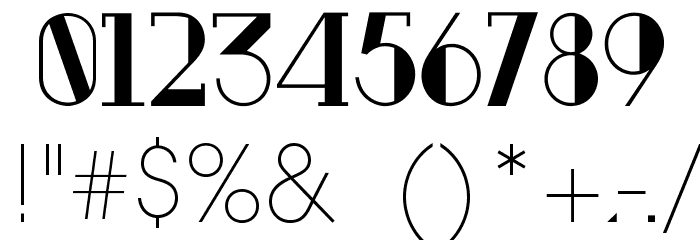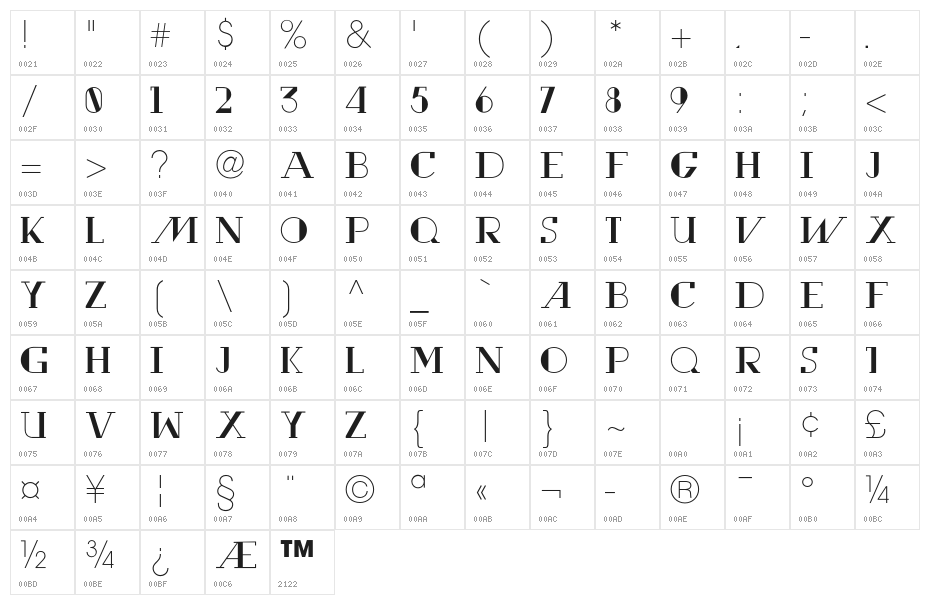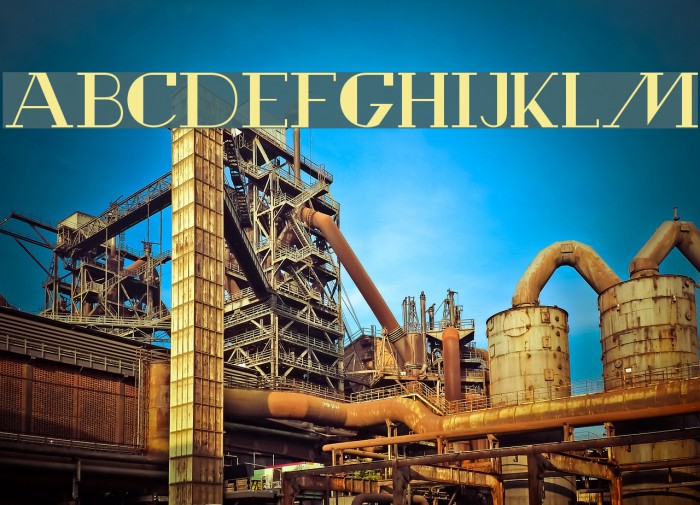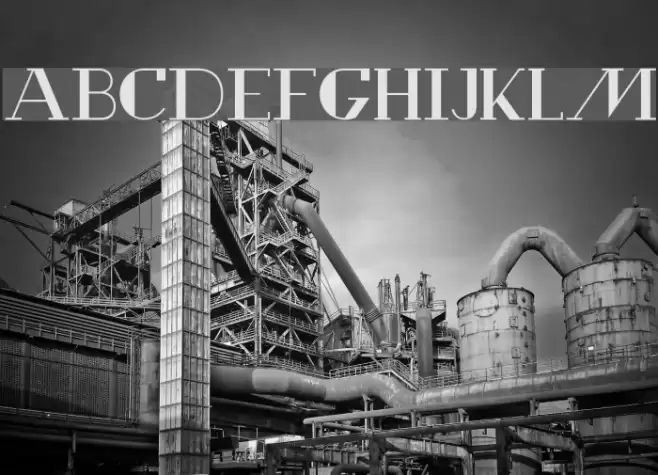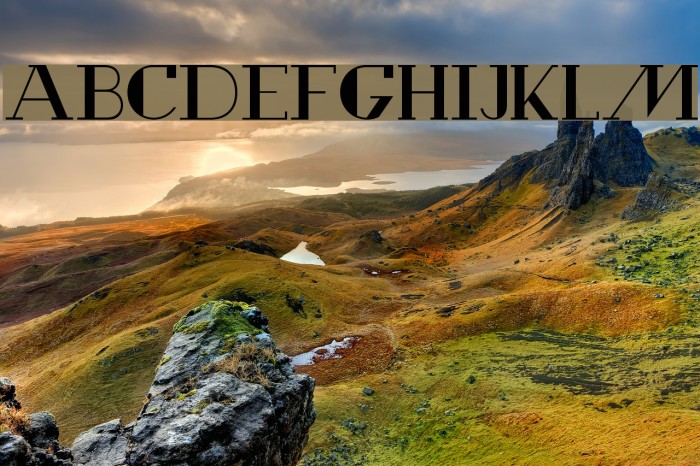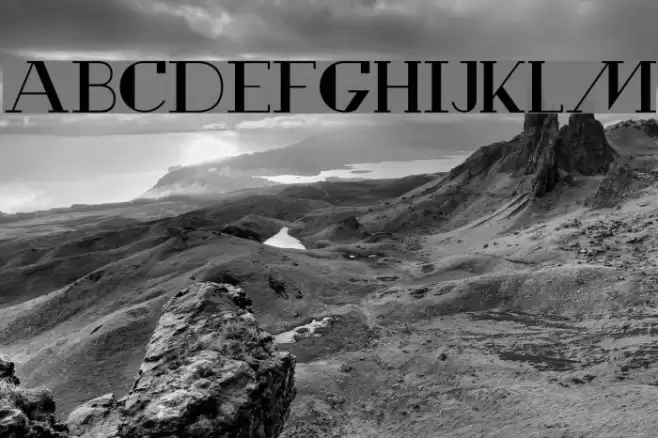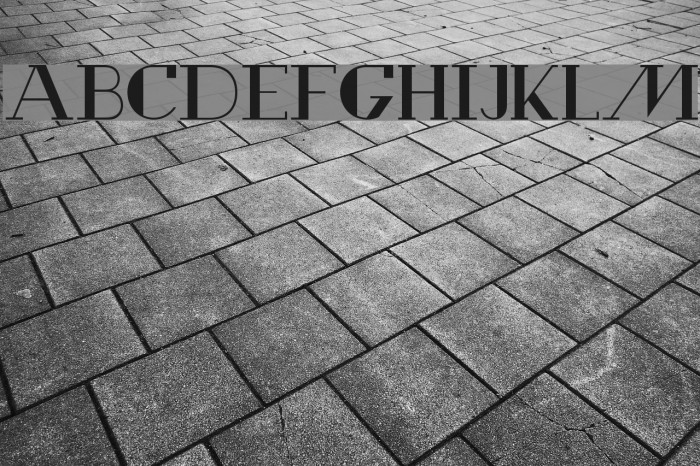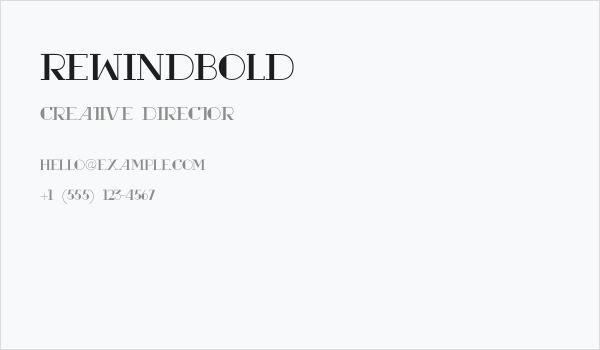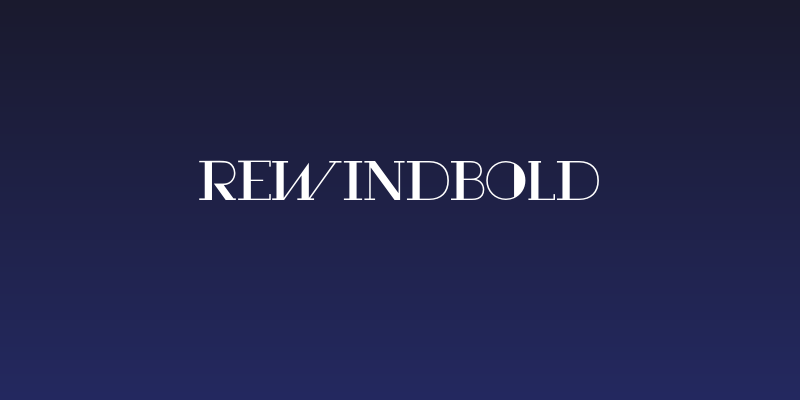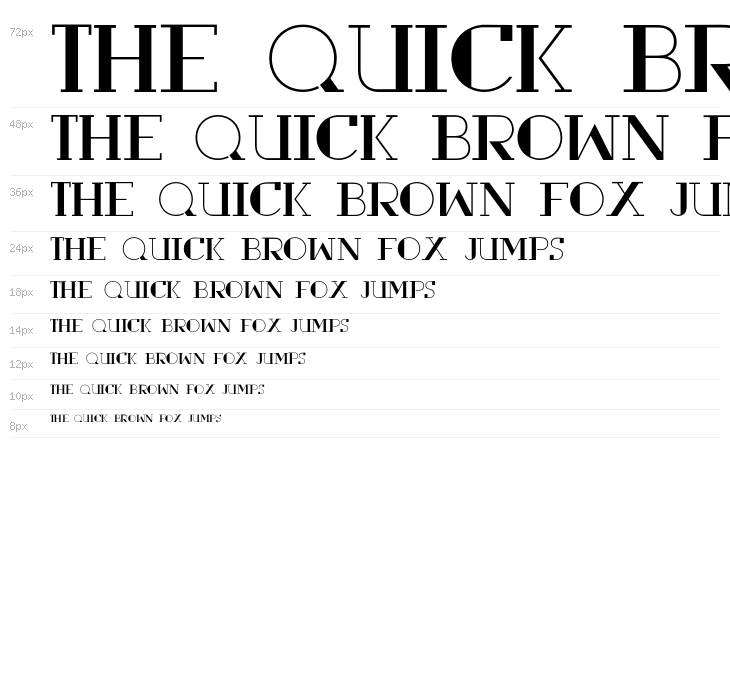
RewindBold Font
RewindBold Description
This font exhibits a bold and dynamic style with a modern twist. The uppercase letters are characterized by sharp, angular serifs and a strong geometric influence, giving them a distinctive and assertive appearance. The lowercase letters maintain a similar aesthetic, with consistent stroke widths and angular features that create a cohesive look. The numerals are bold and easily legible, featuring the same geometric style. Special characters are designed to match the overall theme, ensuring visual harmony across all elements. The font's high contrast between thick and thin strokes adds to its striking presence, making it ideal for impactful designs.